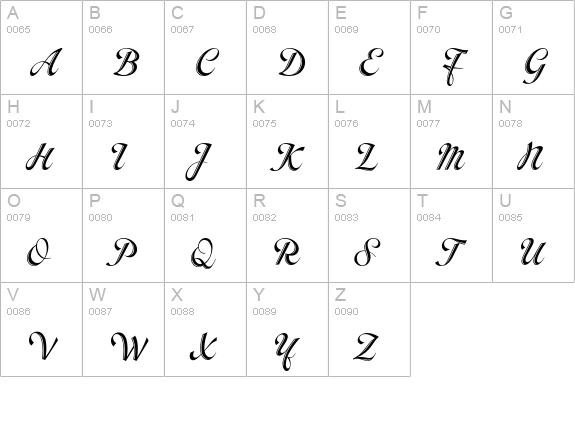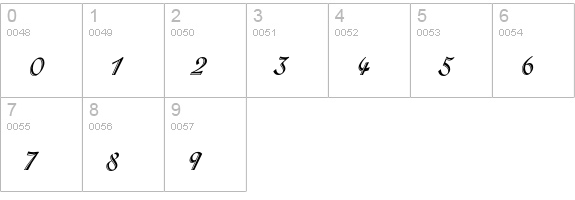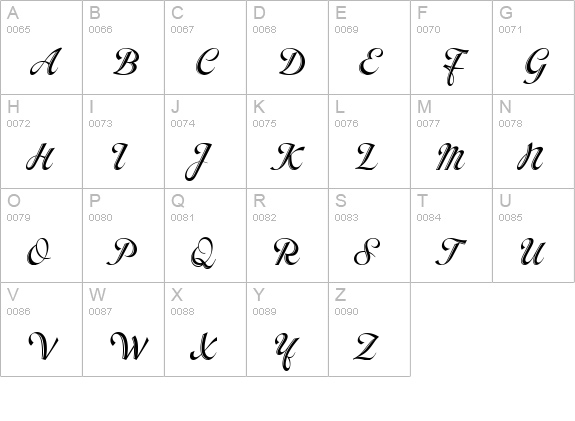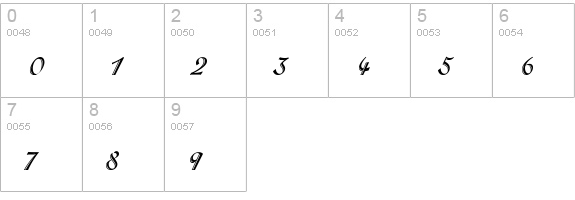
Introducing Inscription Std, a timeless and versatile font that effortlessly combines elegance with modernity. This exquisite typeface boasts a harmonious balance between classic calligraphy and contemporary design, making it the perfect choice for a wide range of projects. With its meticulously crafted letterforms and intricate details, Inscription Std captures the essence of sophistication and refinement. Each stroke is expertly executed, showcasing a level of craftsmanship that is truly remarkable. Whether used for formal invitations, branding materials, or editorial layouts, this font exudes an air of elegance that is sure to captivate any audience. Inscription Std offers a wide range of weights and styles, allowing for endless creative possibilities. From the delicate and graceful Light weight to the bold and commanding Black weight, this font provides the versatility needed to bring any design vision to life. Its extensive character set also includes a variety of alternate glyphs, ligatures, and swashes, providing even more customization options. One of the most remarkable aspects of Inscription Std is that it is available to download for free at FontsMarket.com. This means that designers and enthusiasts alike can access this exceptional font without any financial constraints. Whether you are a professional designer, a student, or an aspiring typographer, Inscription Std offers the opportunity to enhance your work with a premium quality font, without breaking the bank. In summary, Inscription Std is a breathtaking font that seamlessly blends traditional elegance with contemporary design. Its meticulously crafted letterforms, extensive character set, and range of weights make it a versatile choice for various design projects. And the best part? It is freely available to download at FontsMarket.com, making it accessible to all. Elevate your designs with the timeless beauty of Inscription Std today.